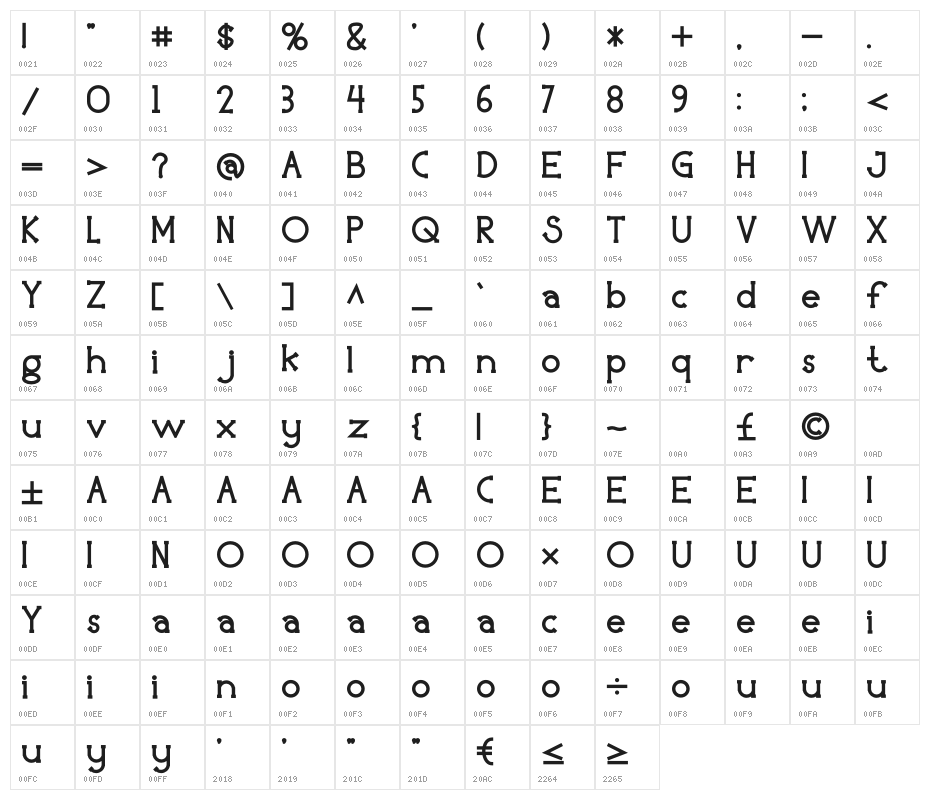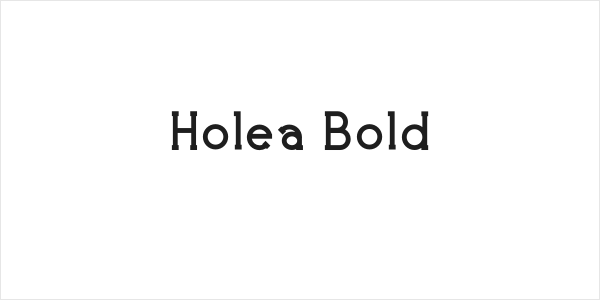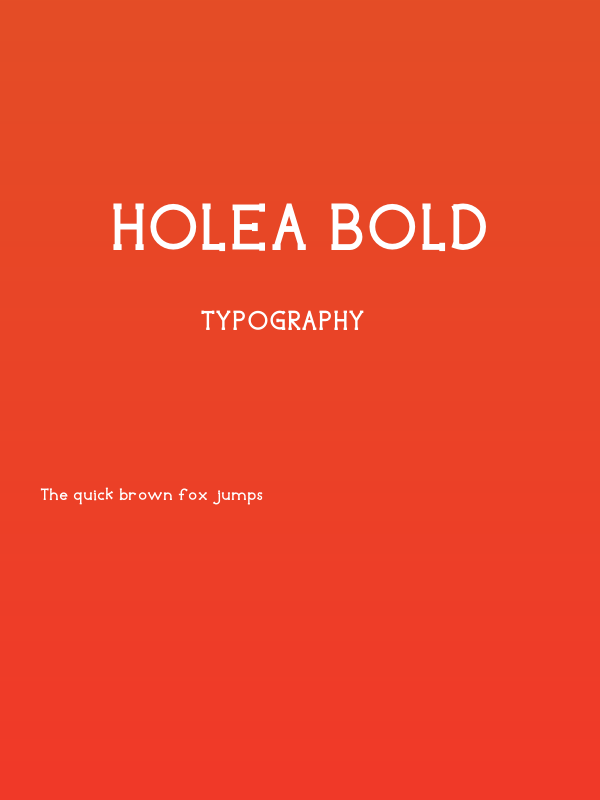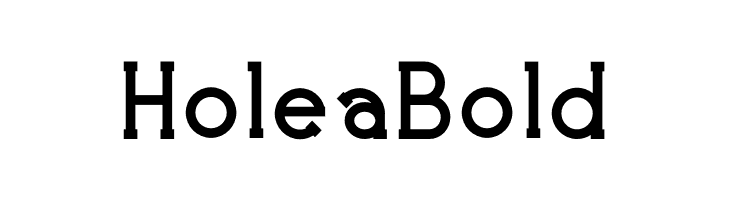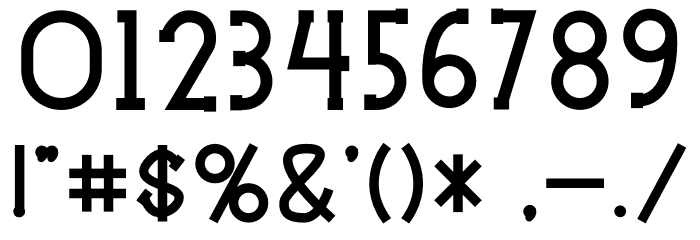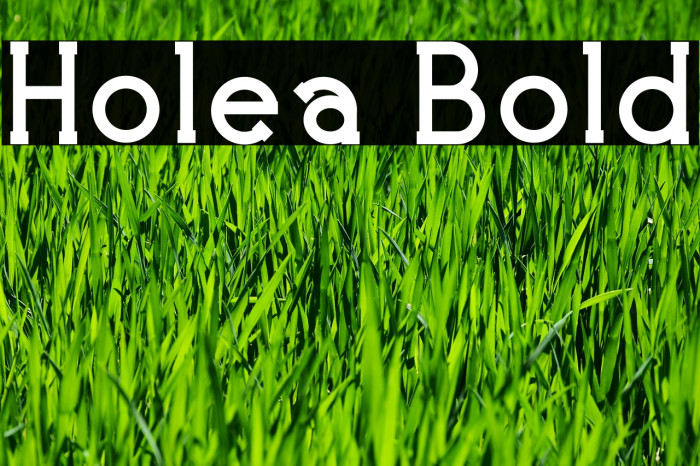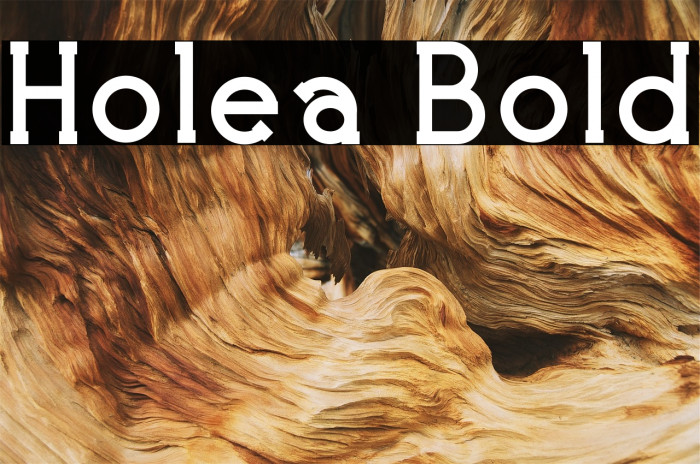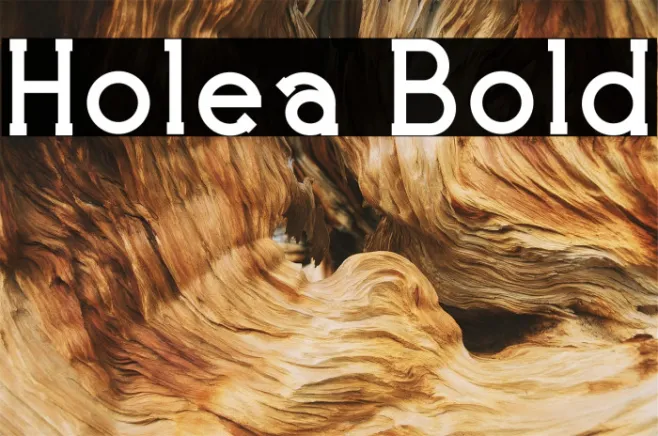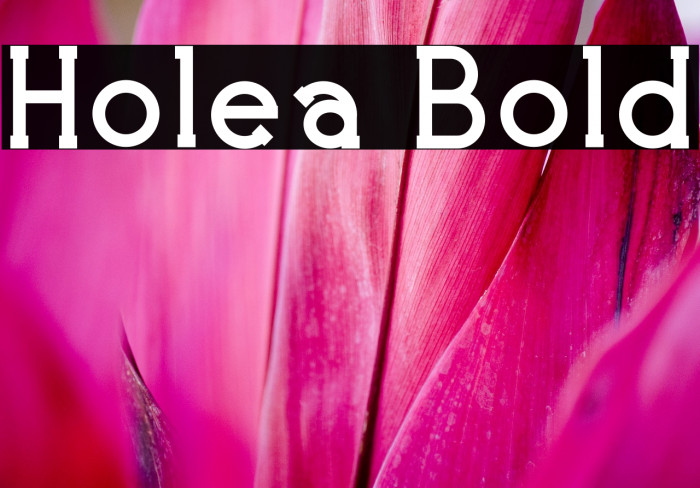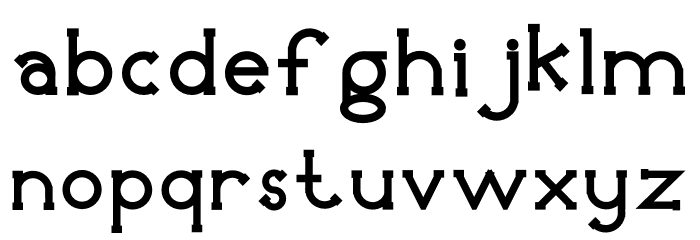
Holea Bold Font
Holea Bold Description
This font features a bold and slightly whimsical design, characterized by its unique blend of geometric and organic shapes. The uppercase letters have a strong presence with slightly rounded edges, while the lowercase letters maintain a playful yet structured appearance. The numerals are clear and consistent, matching the overall boldness of the typeface. Special characters are well-integrated, maintaining the font's distinct style. The font's design is both modern and approachable, making it suitable for a variety of creative applications.
| Proposed Projects | Ideal for branding, headlines, posters, and creative projects that require a bold and modern typeface. |